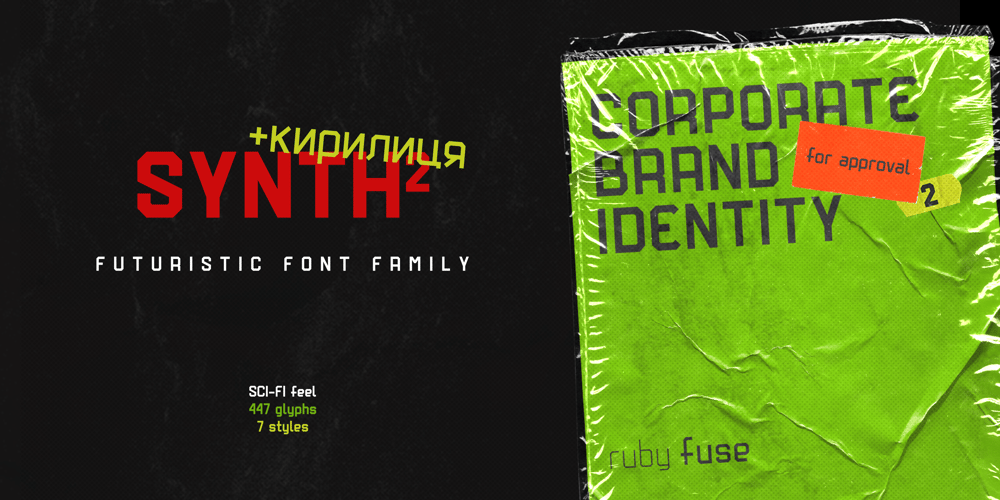
Synth2
Synth2 font
Synth2 Font Family was designed by Taras Pasternak and published by Pasternak. Synth2 contains 7 styles and family package options. The font has a truly futuristic nature. It perfectly conveys the atmosphere of technology and futurism and it’s the best choice for sci-fi and hi-tech topics and pictures.The font letters are unrounded, it’s build is very simple and straight. The font includes 7 styles: thin, extra light, light, regular, medium, bold, and black. With the variety of font widths, there is the ability to make different combinations in graphic or web design projects as well. Carefully kerned letters look well in paragraphs and titles. Special attention to uppercase headings. The font counts 477 glyphs for each style. The thin style is free to use.